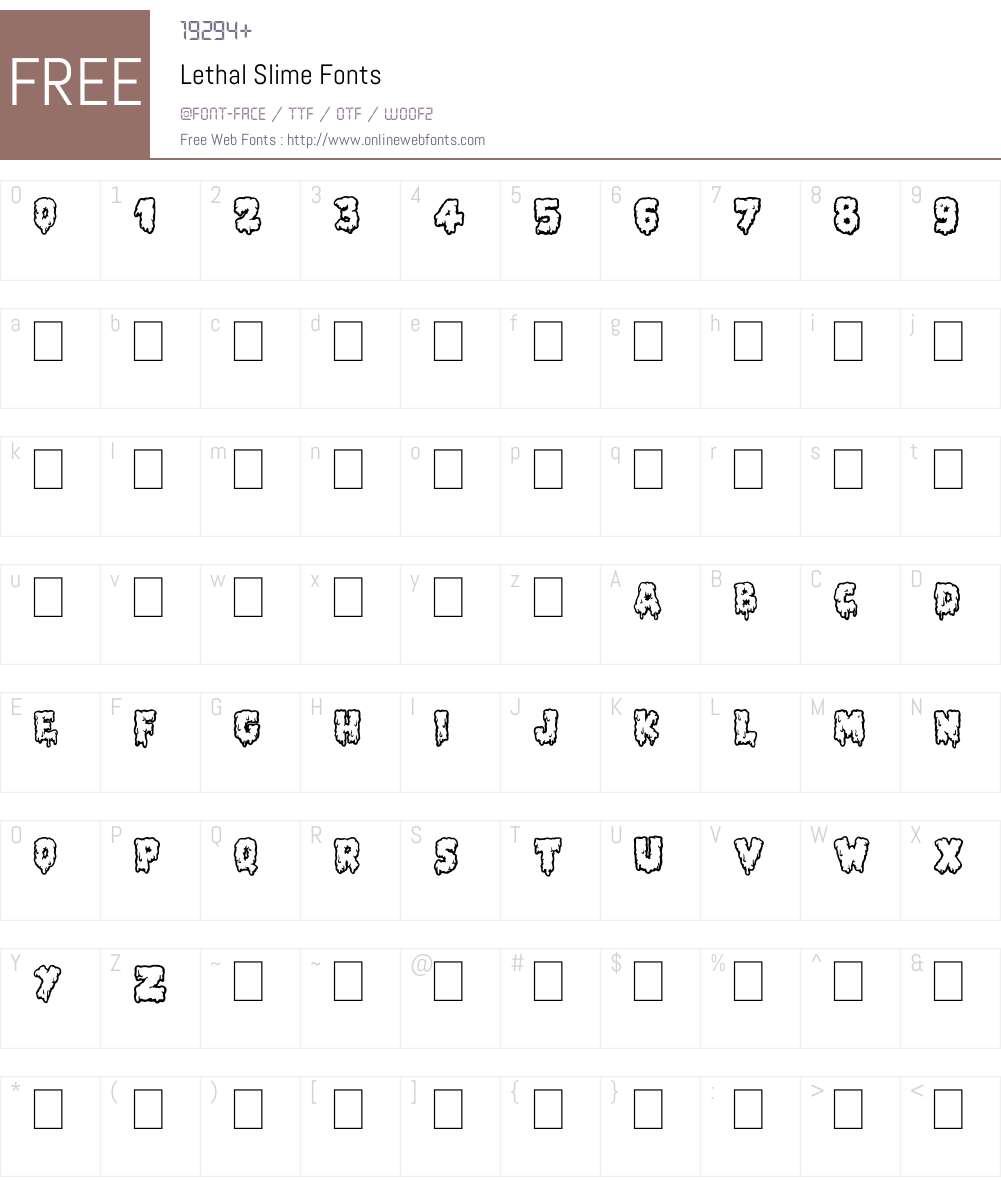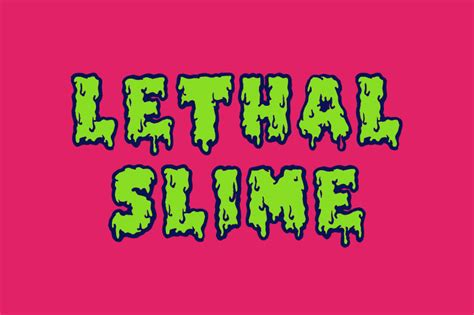
Lethal Slime Font . This font exudes a playful and eerie vibe, reminiscent of dripping slime or melting wax. Download and install free lethal slime font.
This font exudes a playful and eerie vibe, reminiscent of dripping slime or melting wax. Get the lethal slime font free! Download and install lethal slime font from here that is a horror typeface with its free for personal use.
The characters are bold and chunky, with uneven edges that give them a dynamic, organic feel. Download and install free lethal slime font. Get the lethal slime font free! Cette police est gratuite pour un usage personnel.
Lethal Slime Font - This font is from horror category and exclusively available at dafont free. The characters are bold and chunky, with uneven edges that give them a dynamic, organic feel. This blood dripping font is for those who have different creepy designs in mind. Download now and unleash your inner ghoul! Cette police est gratuite pour un usage personnel.
Lethal Slime Font - Each letter appears to be oozing, creating a sense of movement and fluidity. A dripping, edgy font perfect for logos, posters, and halloween designs. This blood dripping font is for those who have different creepy designs in mind. This font exudes a playful and eerie vibe, reminiscent of dripping slime or melting wax. Lethal slime font is one of the.
Lethal Slime Font - Each letter appears to be oozing, creating a sense of movement and fluidity. Download and install free lethal slime font. The characters are bold and chunky, with uneven edges that give them a dynamic, organic feel. Download and install lethal slime font from here that is a horror typeface with its free for personal use. This font is from horror.
Lethal Slime Font - This blood dripping font is for those who have different creepy designs in mind. Get the lethal slime font free! Each letter appears to be oozing, creating a sense of movement and fluidity. This font is from horror category and exclusively available at dafont free. Lethal slime font is one of the runny and loose fonts.
Lethal Slime Font - Each letter appears to be oozing, creating a sense of movement and fluidity. This font is from horror category and exclusively available at dafont free. The characters are bold and chunky, with uneven edges that give them a dynamic, organic feel. This font exudes a playful and eerie vibe, reminiscent of dripping slime or melting wax. Lethal slime font is.
Lethal Slime Font - The characters are bold and chunky, with uneven edges that give them a dynamic, organic feel. This blood dripping font is for those who have different creepy designs in mind. Download and install free lethal slime font. This font exudes a playful and eerie vibe, reminiscent of dripping slime or melting wax. Get the lethal slime font free!
Lethal Slime Font - Download now and unleash your inner ghoul! This font is from horror category and exclusively available at dafont free. A dripping, edgy font perfect for logos, posters, and halloween designs. Get the lethal slime font free! The characters are bold and chunky, with uneven edges that give them a dynamic, organic feel.
Lethal Slime Font - Download and install free lethal slime font. Lethal slime font is one of the runny and loose fonts. A dripping, edgy font perfect for logos, posters, and halloween designs. This font is from horror category and exclusively available at dafont free. This font exudes a playful and eerie vibe, reminiscent of dripping slime or melting wax.
Lethal Slime Font - This font is from horror category and exclusively available at dafont free. This blood dripping font is for those who have different creepy designs in mind. Lethal slime font is one of the runny and loose fonts. Get the lethal slime font free! Download and install lethal slime font from here that is a horror typeface with its free for.
Lethal Slime Font - This font exudes a playful and eerie vibe, reminiscent of dripping slime or melting wax. Get the lethal slime font free! Cette police est gratuite pour un usage personnel. Download now and unleash your inner ghoul! Each letter appears to be oozing, creating a sense of movement and fluidity.
Lethal Slime Font - Download now and unleash your inner ghoul! The characters are bold and chunky, with uneven edges that give them a dynamic, organic feel. Download and install free lethal slime font. A dripping, edgy font perfect for logos, posters, and halloween designs. This blood dripping font is for those who have different creepy designs in mind.
Lethal Slime Font - Lethal slime font is one of the runny and loose fonts. Download now and unleash your inner ghoul! A dripping, edgy font perfect for logos, posters, and halloween designs. Download and install free lethal slime font. Cette police est gratuite pour un usage personnel.